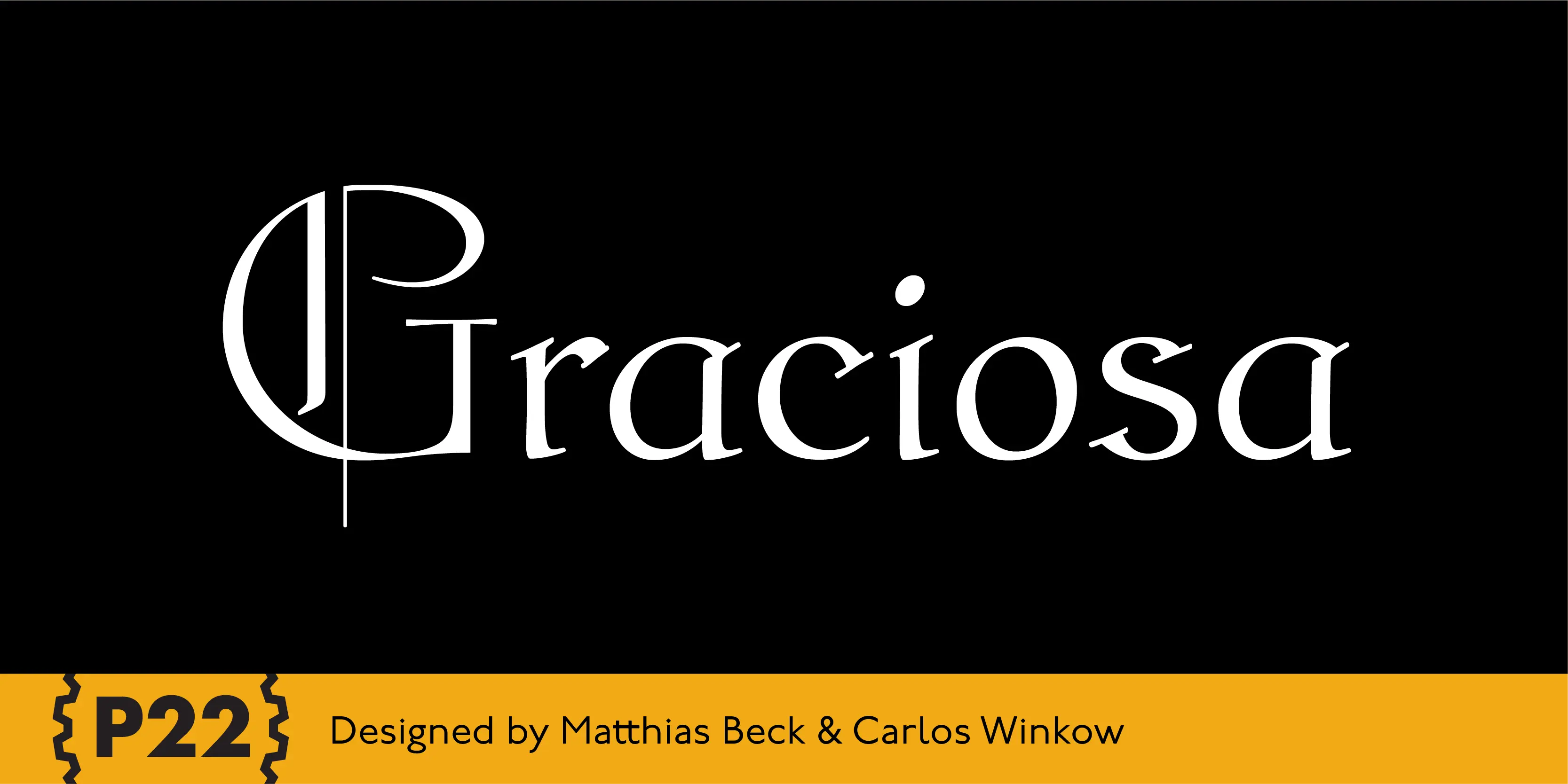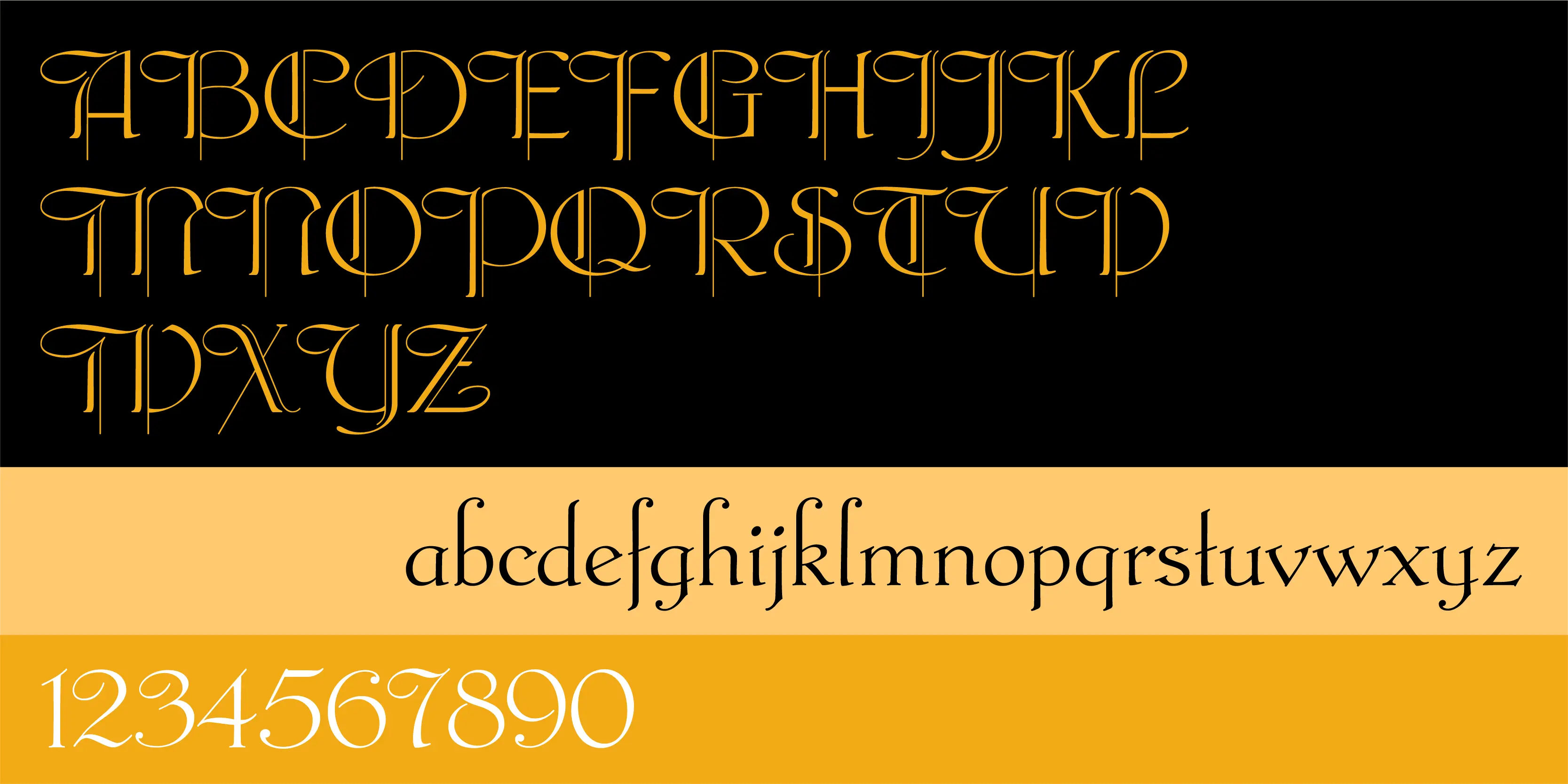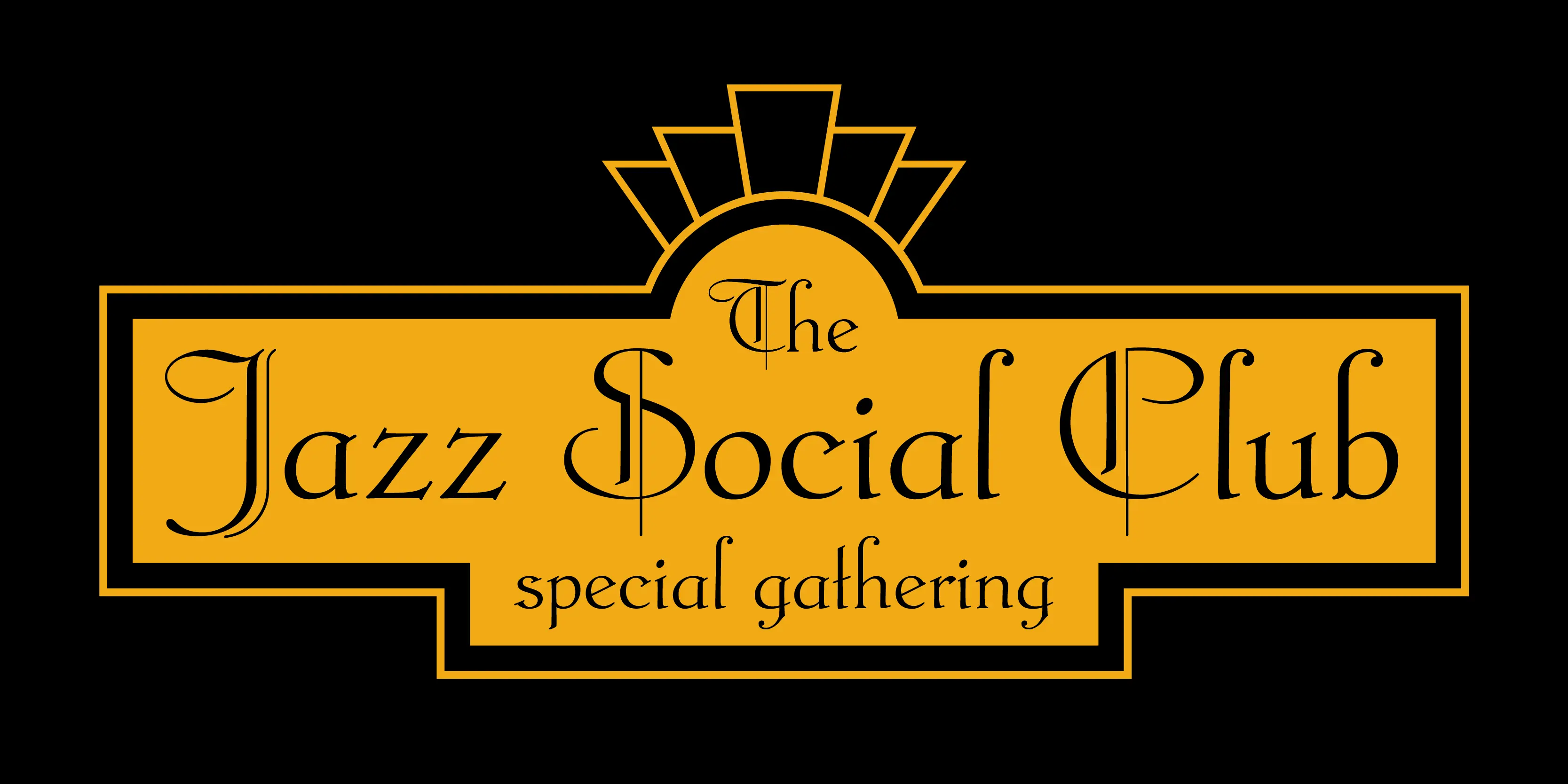
Graciosa Font Family
Graciosa
P22 Graciosa is a five font family based upon designs for a metal type by Carlos Winkow (1882–1952), a German type designer who lived and worked in Spain in the early 20th Century. Graciosa is a sort of hybrid blackletter/text font, with simplified blackletter caps and a serifed lowercase with subtle script flare. There is a Regular, Black, an open version called White, and an engraved version called Gris. The version called Multi serves as a fill font to allow for multi-colored layering options. A revival of these designs was initiated by Matthias Beck in 2015. The character set was expanded for use in 21 languages (OpenType Standard). The digitization and reintroduction of these old fonts — created in Spain and practically forgotten — makes them regain a new life. This project was subsidized by the Spanish Ministry of Education, Culture and Sport.